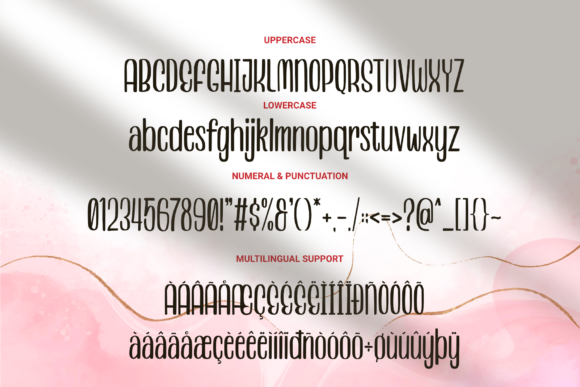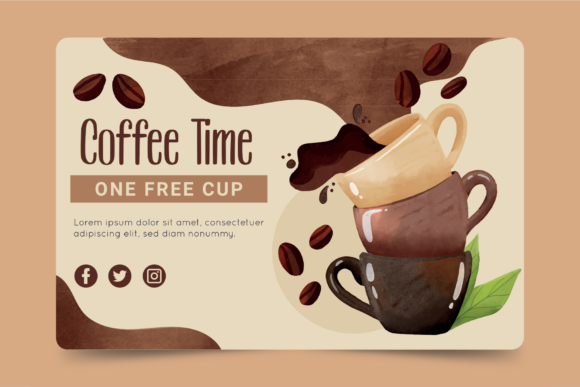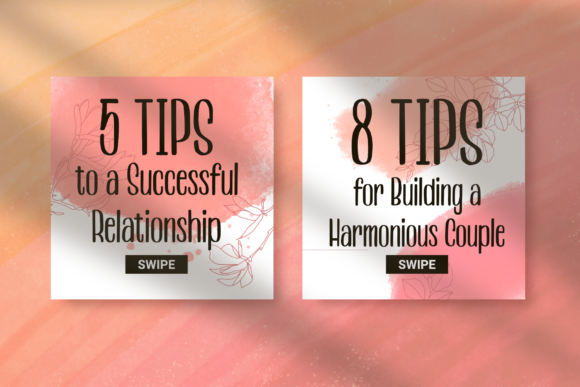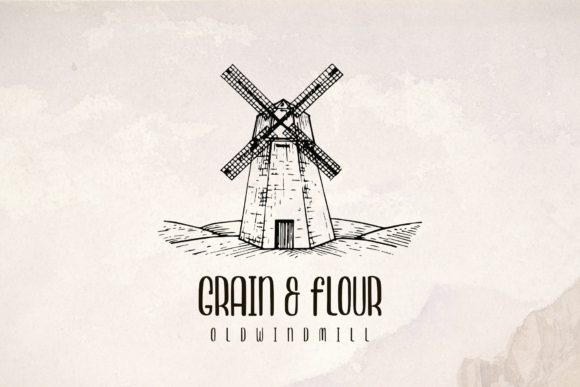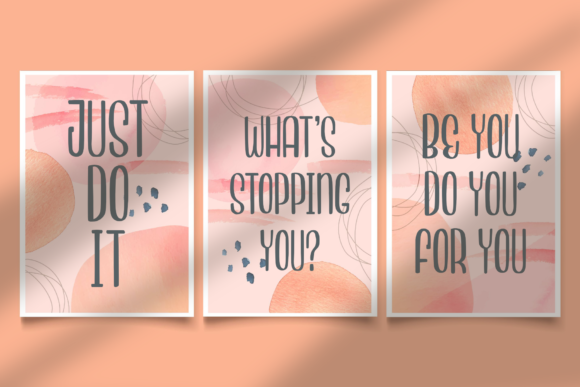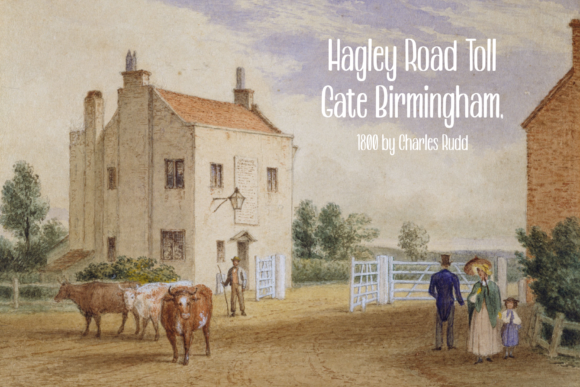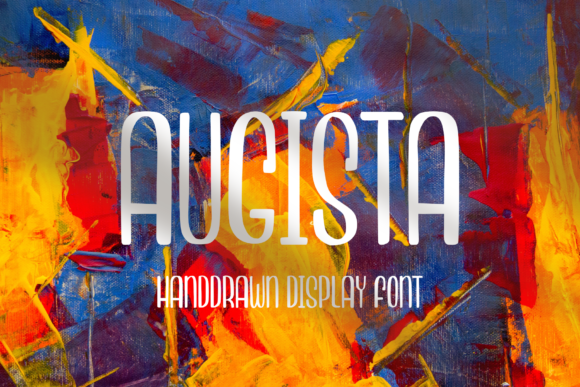
Introducing Augista Font: The Ultimate Addition to Your Fun and Playful Designs
Are you tired of using the same old fonts for your party invitations, social media graphics, and craft projects? Look no further than Augista Font, a cool, fun, and friendly display font that’s sure to add a touch of youth and joy to any design. In this article, we’ll dive into the world of Augista Font, exploring its features, benefits, and uses, as well as provide tips and inspiration for incorporating it into your creative projects.
What is Augista Font?
Augista Font is a modern, sans-serif display font that’s designed to bring a sense of fun and playfulness to your designs. Its clean lines, rounded edges, and bouncy curves make it the perfect choice for projects that require a youthful and energetic vibe. Whether you’re creating party invitations, social media graphics, or craft projects, Augista Font is sure to make your designs stand out from the crowd.
Features of Augista Font
So, what makes Augista Font so special? Here are just a few of its key features:
- Unique and playful design: Augista Font has a one-of-a-kind design that’s sure to grab attention and add a touch of personality to your projects.
- Highly legible: Despite its playful design, Augista Font is highly legible, making it perfect for use in a variety of contexts, from body text to headings and titles.
- Versatile: Augista Font is a versatile font that can be used in a wide range of projects, from digital designs to print materials.
- Easily customizable: Augista Font is easy to customize, allowing you to adjust its size, color, and style to suit your project’s needs.
Benefits of Using Augista Font
So, why should you choose Augista Font for your projects? Here are just a few of the benefits of using this amazing font:
- Adds a touch of youth and joy: Augista Font is designed to bring a sense of fun and playfulness to your designs, making it perfect for projects that require a youthful and energetic vibe.
- Perfect for party invitations and social media graphics: Augista Font is ideal for use in party invitations, social media graphics, and other projects that require a fun and playful design.
- Great for crafters and DIY enthusiasts: Augista Font is a great choice for crafters and DIY enthusiasts who want to add a personal touch to their projects.
- Easy to use: Augista Font is easy to use and can be easily integrated into a variety of design software and platforms.
Using Augista Font in Your Designs
So, how can you use Augista Font in your designs? Here are a few ideas to get you started:
- Party invitations: Use Augista Font to create fun and playful party invitations that are sure to get your guests excited.
- Social media graphics: Add Augista Font to your social media graphics to give them a youthful and energetic vibe.
- Craft projects: Use Augista Font to add a personal touch to your craft projects, such as handmade cards, gift tags, and scrapbook pages.
- Signs and posters: Use Augista Font to create eye-catching signs and posters that are sure to grab attention.
Tips for Getting the Most Out of Augista Font
Here are a few tips for getting the most out of Augista Font:
- Experiment with different sizes and colors: Don’t be afraid to experiment with different sizes and colors of Augista Font to find the perfect combination for your project.
- Pair it with other fonts: Augista Font pairs well with a variety of other fonts, so don’t be afraid to get creative and try out different combinations.
- Use it in combination with images: Augista Font looks great in combination with images, so consider using it to add text to your photos and illustrations.
In conclusion, Augista Font is a cool, fun, and friendly display font that’s perfect for adding a touch of youth and joy to your designs. With its unique and playful design, high legibility, and versatility, Augista Font is a great choice for a wide range of projects, from party invitations and social media graphics to craft projects and signs. So why not give Augista Font a try and see the difference it can make in your designs?